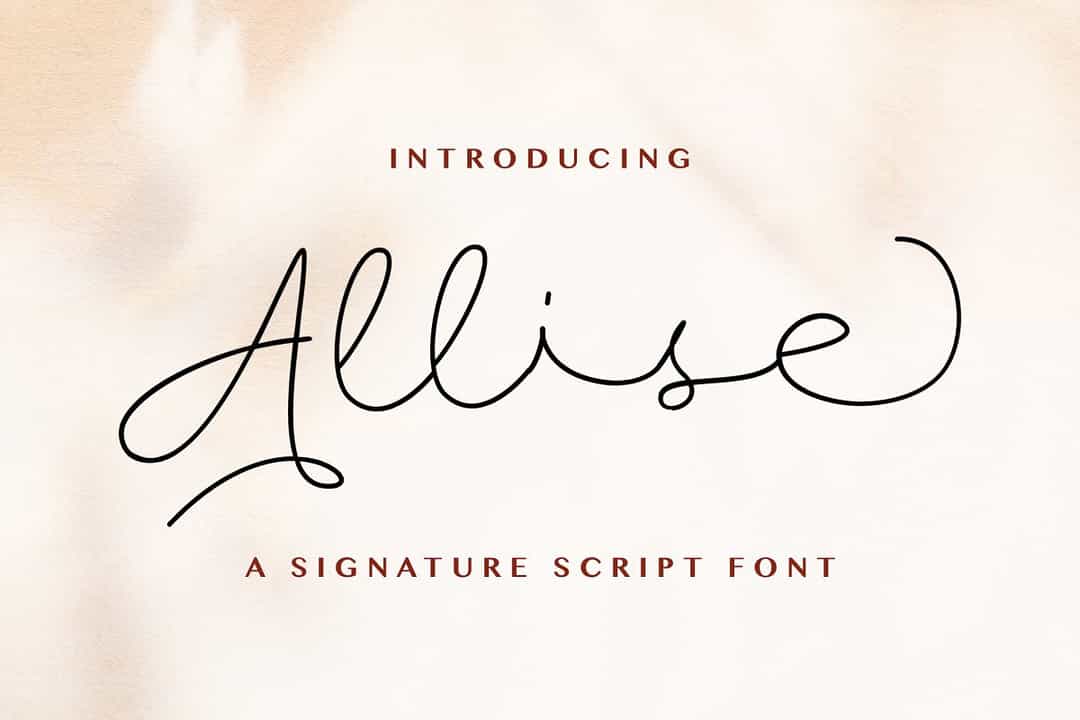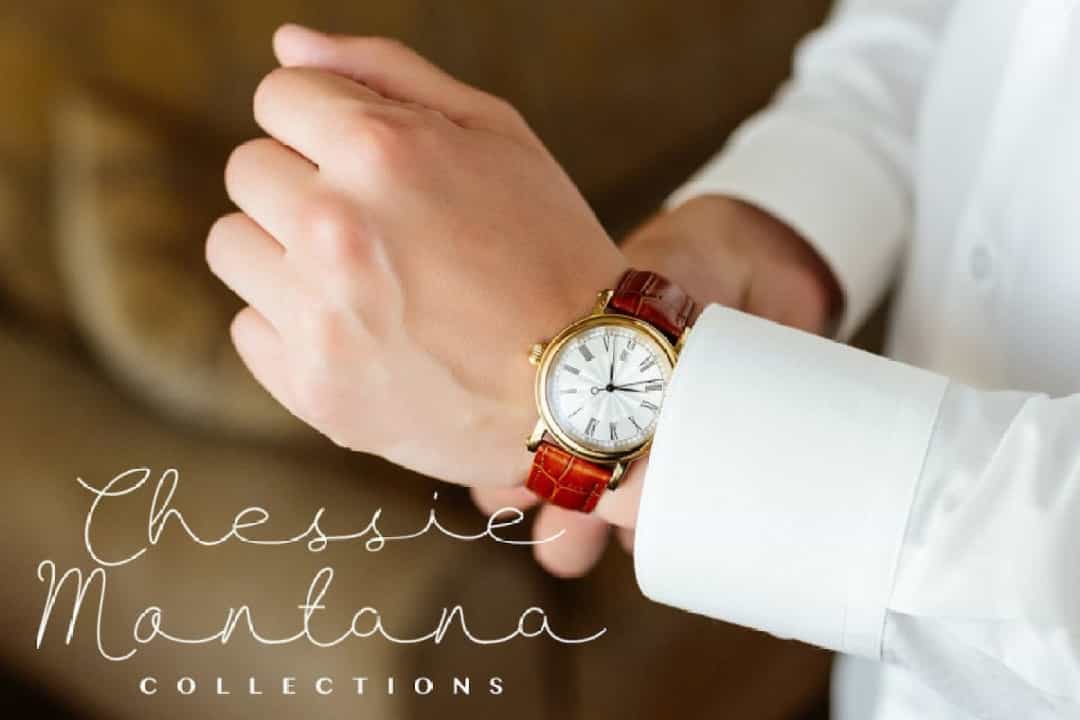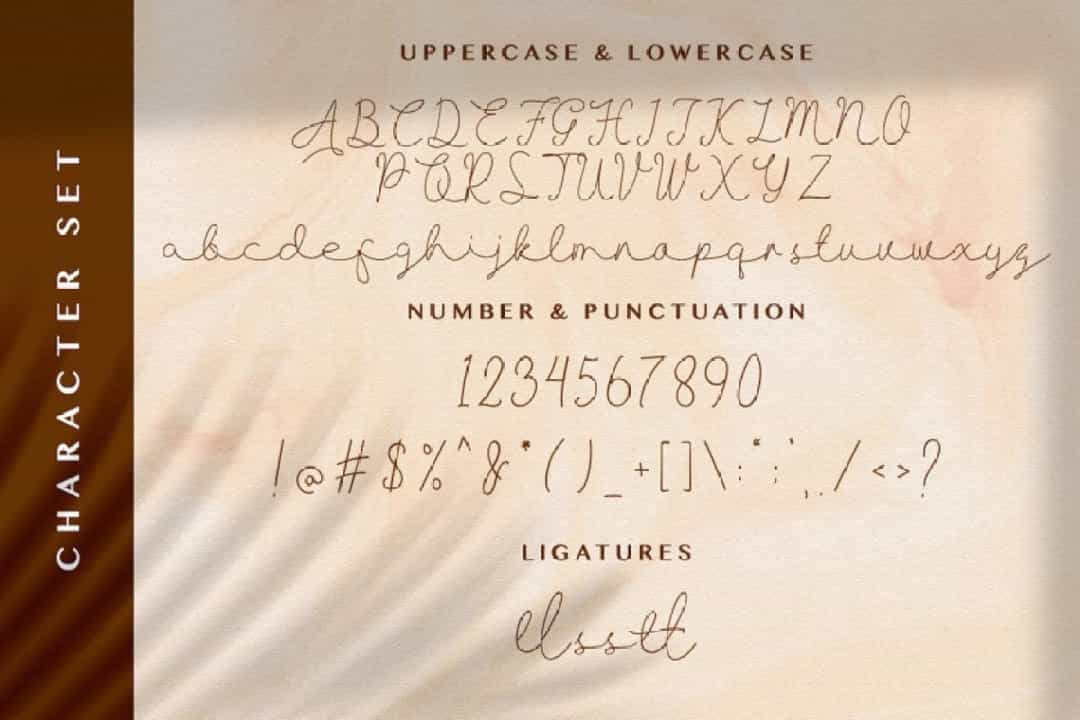
Allise is a font made in the Script style with Handwritten Signature look, drawn with brush pen in real handwriting. Allise font can be used for weddings invitations, business cards and logo brands as well signature and calligraphy fonts.